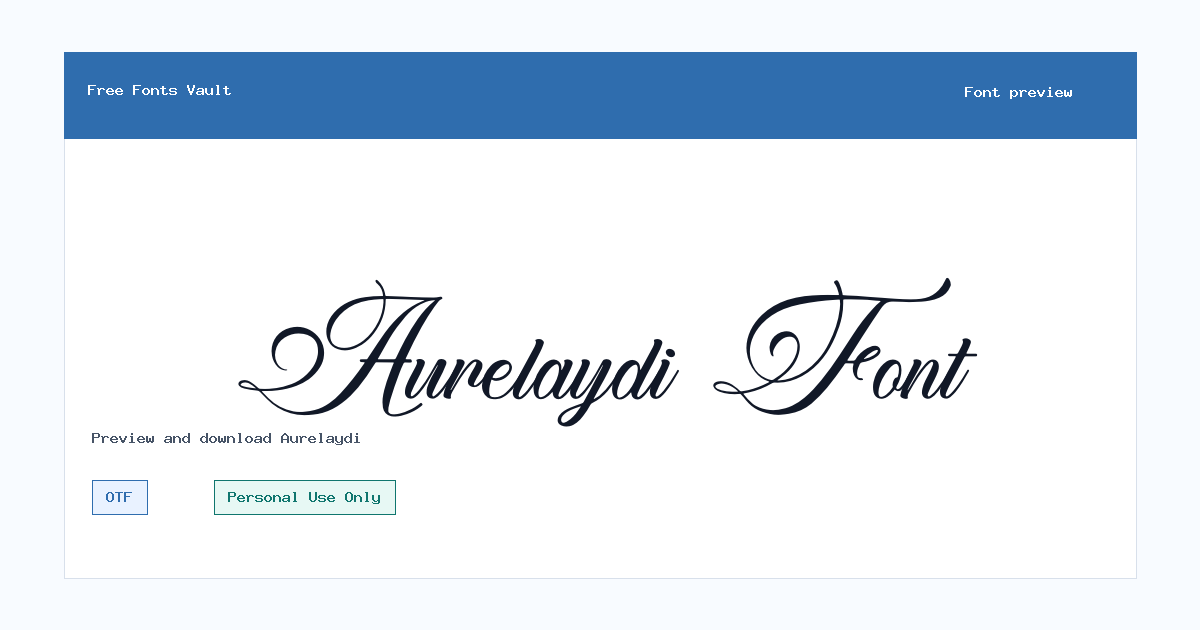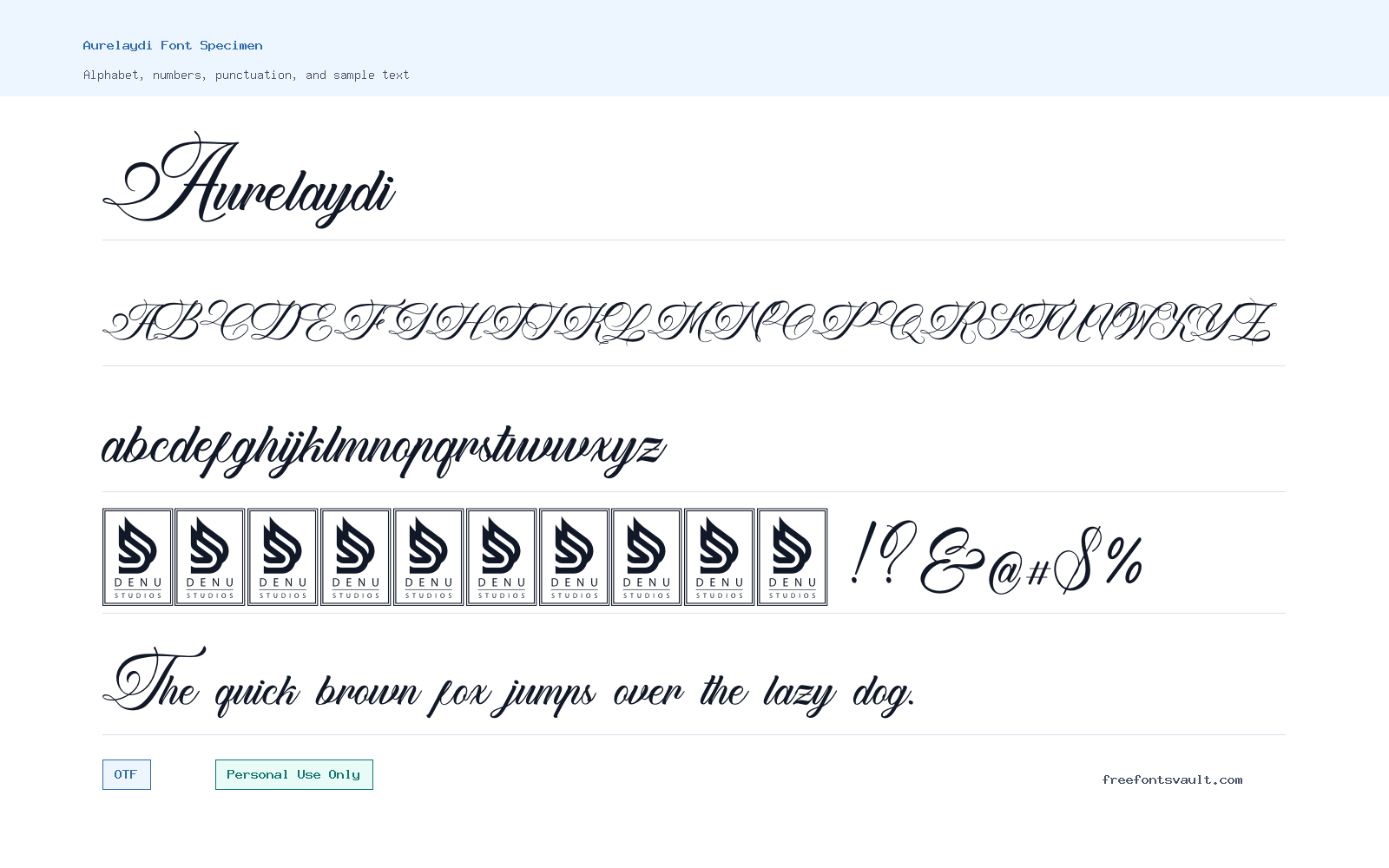
Aurelaydi
Aurelaydi font preview showing the family name
Aurelaydi Font
Aurelaydi font specimen showing alphabet, numbers, and sample text
• Designer Dede Nugraha
Aurelaydi font.
Aurelaydi is a calligraphy script font with a decorative handwritten feel, made for designs that need a graceful, personal touch rather than a plain text style.
About Aurelaydi Font
Aurelaydi works best when it is treated as a display font. Its script direction makes it more suitable for short wording, names, titles, and decorative phrases than for long paragraphs. If you are designing a logo concept, invitation heading, poster title, quote graphic, packaging mockup, or social media artwork, this kind of calligraphy lettering can add warmth without needing a fully custom hand-lettered piece. The font is offered as an OTF file in a regular style, which makes it easy to test in common design apps that support OpenType fonts.
Because Aurelaydi is a script font, spacing and word length matter. Try it first with the exact text you plan to use, especially if the design includes uppercase letters, initials, or tight layouts. Short names and two- or three-word phrases will usually be easier to balance than long sentences. For logo work, test the font at small sizes as well as large sizes, then check whether the strokes stay clear when placed on business cards, profile images, packaging labels, or website headers. For posters and web mockups, give the lettering enough breathing room and avoid placing it over busy images unless the contrast is strong.
• Calligraphy script style suited to decorative headings, names, and short phrases.
• Works best as accent typography rather than body copy.
• Logo concepts and brand mockups that need a soft script look.
• Wedding-style invitations, greeting cards, and name-based designs.
• Poster titles, quote graphics, and social media images with short text.
• Packaging mockups for beauty, boutique, craft, or handmade-style products.
• Website hero text or banner mockups where the font is used sparingly.
Use Aurelaydi as a focal font, not as the main reading font. Pair it with a clean sans serif or a quiet serif for supporting text, and let the script carry only the most important words. A simple pairing approach is to set names, headlines, or key phrases in Aurelaydi, then use a neutral font for dates, descriptions, prices, menu items, contact details, and longer copy. This keeps the design readable while still giving the layout a calligraphy accent. For logo and poster testing, check letter spacing, baseline flow, and readability at small sizes before exporting final artwork.
What kind of font is Aurelaydi?
Aurelaydi is a calligraphy script font intended for decorative text such as names, titles, invitations, and short display phrases.
Is Aurelaydi good for body text?
It is better for short display text. For paragraphs, menus, descriptions, or website copy, pair it with a simpler, more readable font.